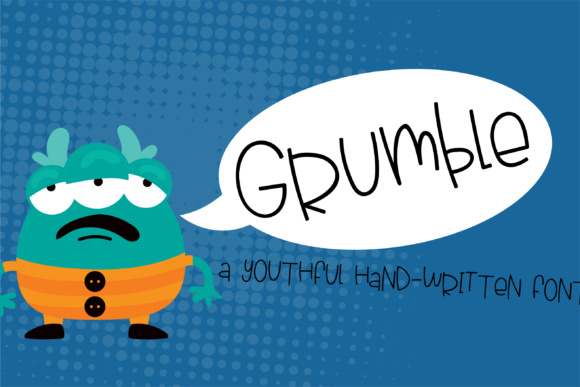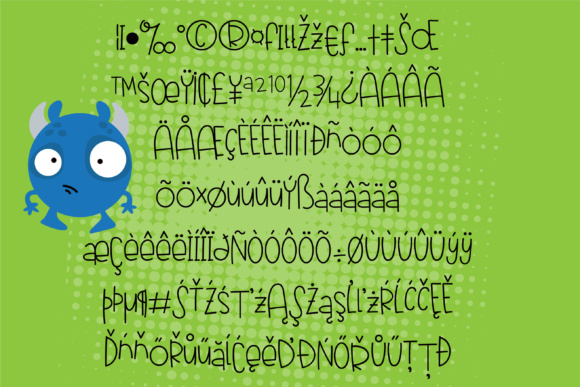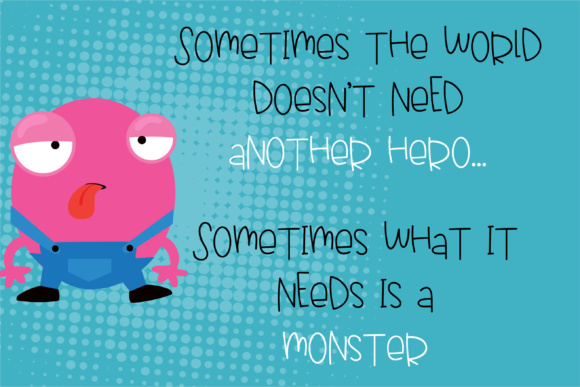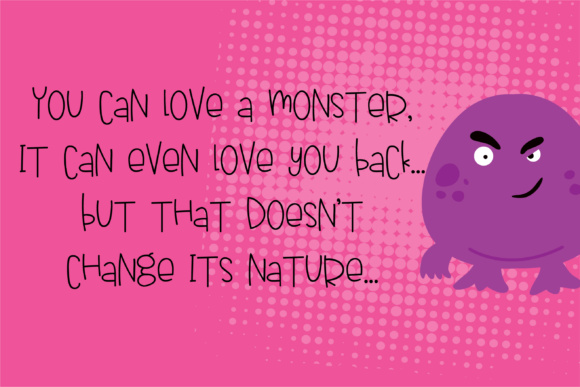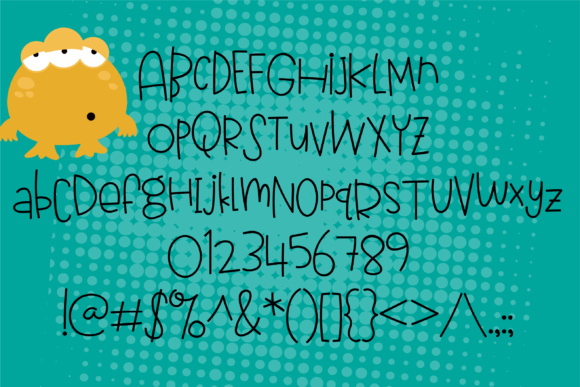
Grumble Font
About Grumble Font
This hand-crafted, casual font is what we like to call a quasi-script… part script, part print. This fun font packs a few extra details to keep things interesting.